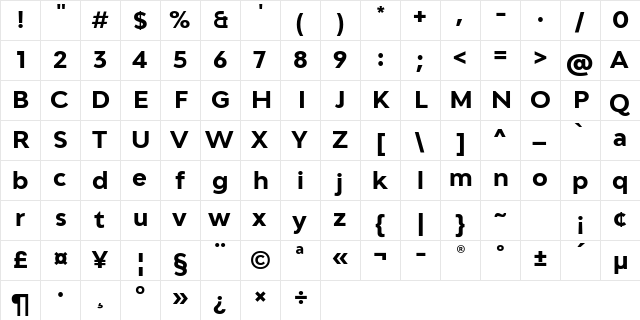
Adlinnaka Bold
| Foundry | Harmnessless |
| Designer | Akbar Rohmanto |
Design Context for Adlinnaka Typeface
Adlinnaka takes a measured approach to typography — its balanced proportions and neutral character make it a reliable workhorse for both digital and print work. The heavy weight commands attention and anchors typographic hierarchies.